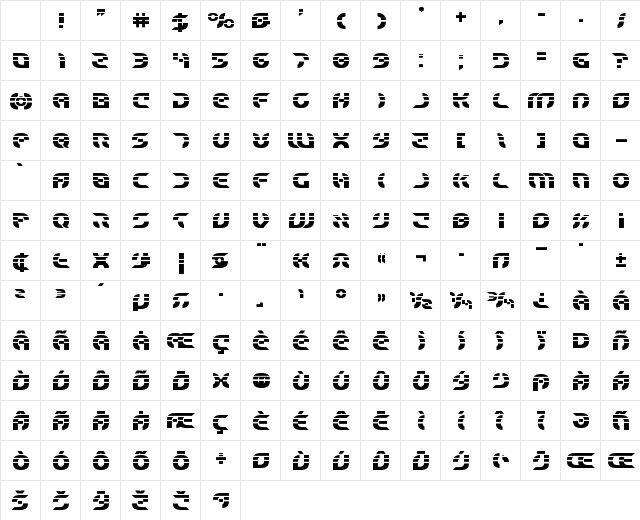
Starfighter Laser is a composed and adaptable typeface that performs quietly and consistently across a wide range of design contexts. Its bold stroke weight gives it real presence on the page.